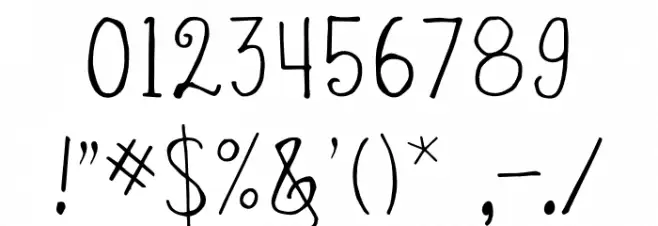
Chahna Font
Chahna Description
This font features a playful and whimsical design with a handwritten style. The letters are characterized by their curly and looping strokes, giving them a lively and dynamic appearance. The uppercase letters maintain a consistent height, while the lowercase letters exhibit a charming irregularity that adds to the font's casual and friendly feel. The numbers and special characters follow the same playful aesthetic, making them suitable for creative and informal projects. The font's overall style is both unique and approachable, making it ideal for designs that aim to convey a sense of fun and creativity.
A playful, handwritten font with curly, dynamic strokes from Cartoon fonts.
- ( Introducing Chahna, a cool and fresh handwritten font. Designed to suit the designer's needs of a font that can bring joyful feelings of children. You can use it on various projects such as invitation cards, children books, restaurant menus, etc. It come FREE )
- Proposed Projects: Great for children's books, playful branding, greeting cards, and creative invitations.
- Use Case: Logos, Headlines, Creative projects